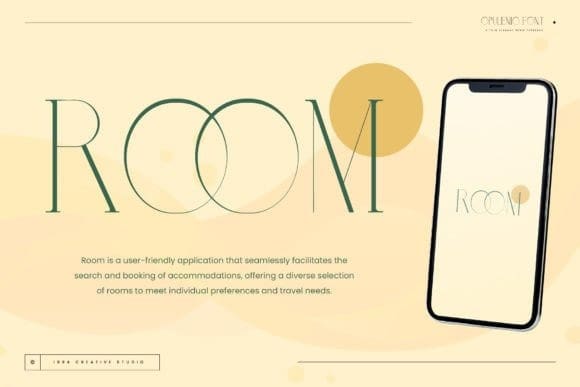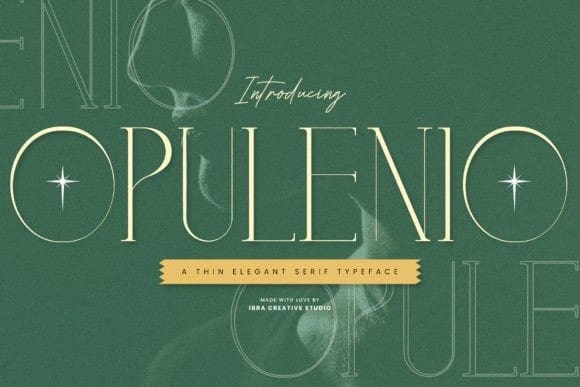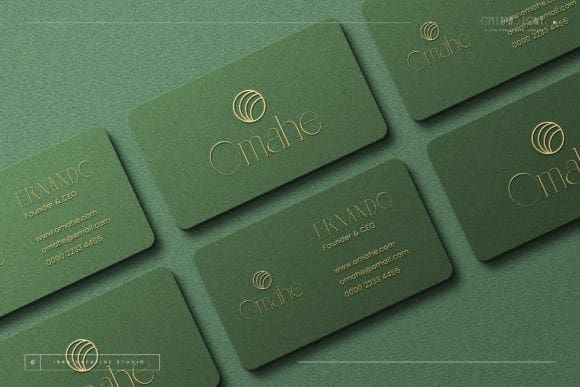
Opulenio Font
Opulenio Font, a thin and elegant serif typeface, epitomizes sophistication with its refined design and delicate strokes. The slender serifs and gracefully elongated letterforms create an air of timeless grace, making Opulenio a perfect choice for projects that demand a touch of luxury and class. The precise balance between thin lines and subtle detailing contributes to its understated beauty, ensuring legibility while exuding a sense of modern opulence.